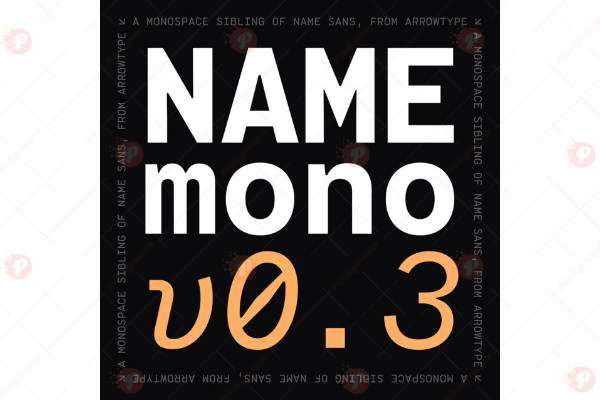
The Name Mono Font Free is a modern monospaced typeface designed for coding, UI/UX design, branding, and creative projects. With its fixed-width letterforms, it delivers a clean, balanced, and professional look that’s perfect for both technical and creative uses.
This font is highly versatile — ideal for developer portfolios, websites, digital products, programming environments, editorial layouts, modern branding, and minimalist designs. Its precision and readability make it stand out in code snippets, terminal displays, and clean graphic compositions.
Typeface: Monospace / Sans Serif / Modern
Style: Clean / Minimal / Technical / Professional
Perfect for: Coding, UI/UX Design, Websites, Portfolios, Branding, Editorial Layouts, Digital Products
Bring clarity and modern style to your designs with the Name Mono Font Free.